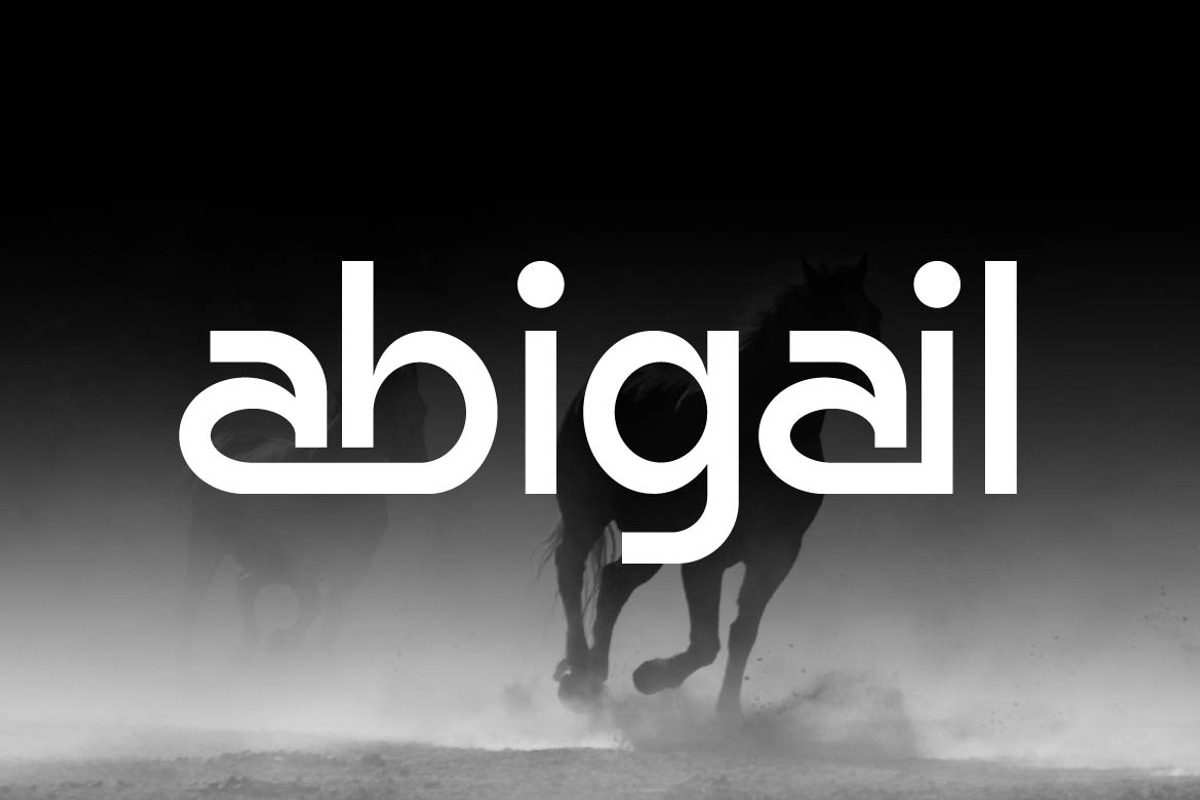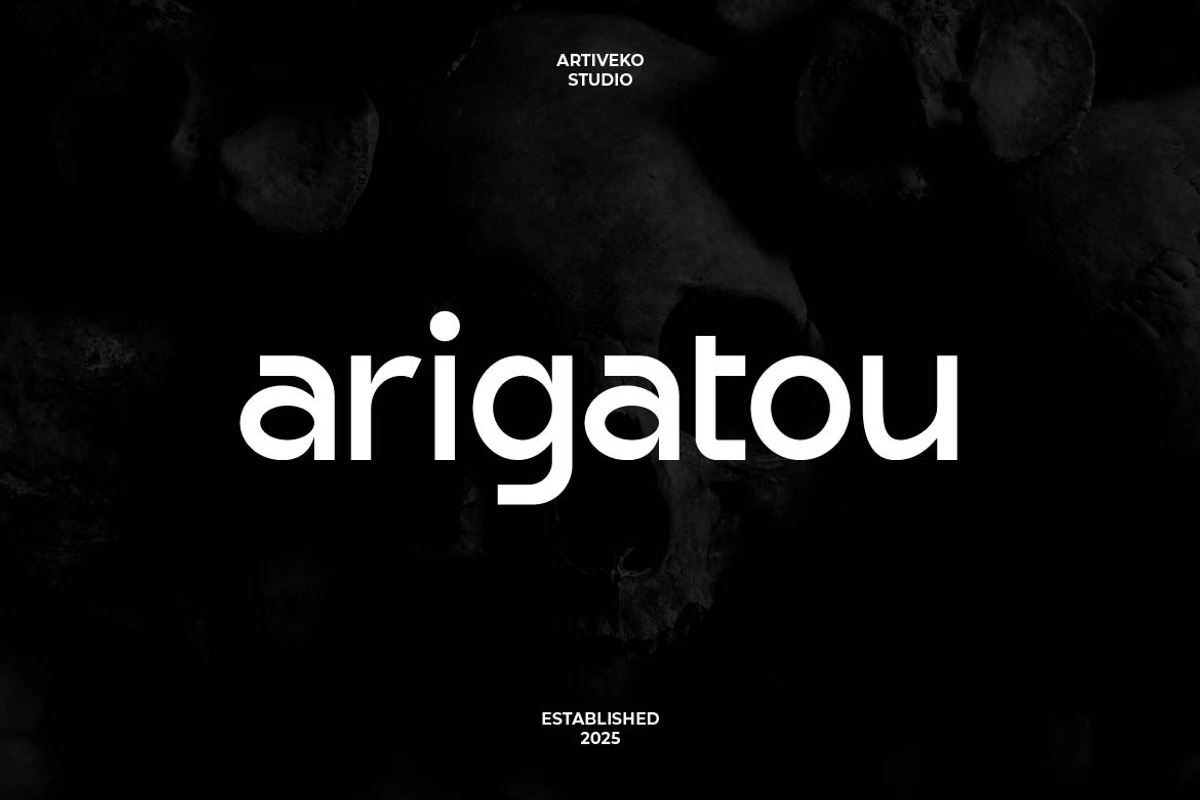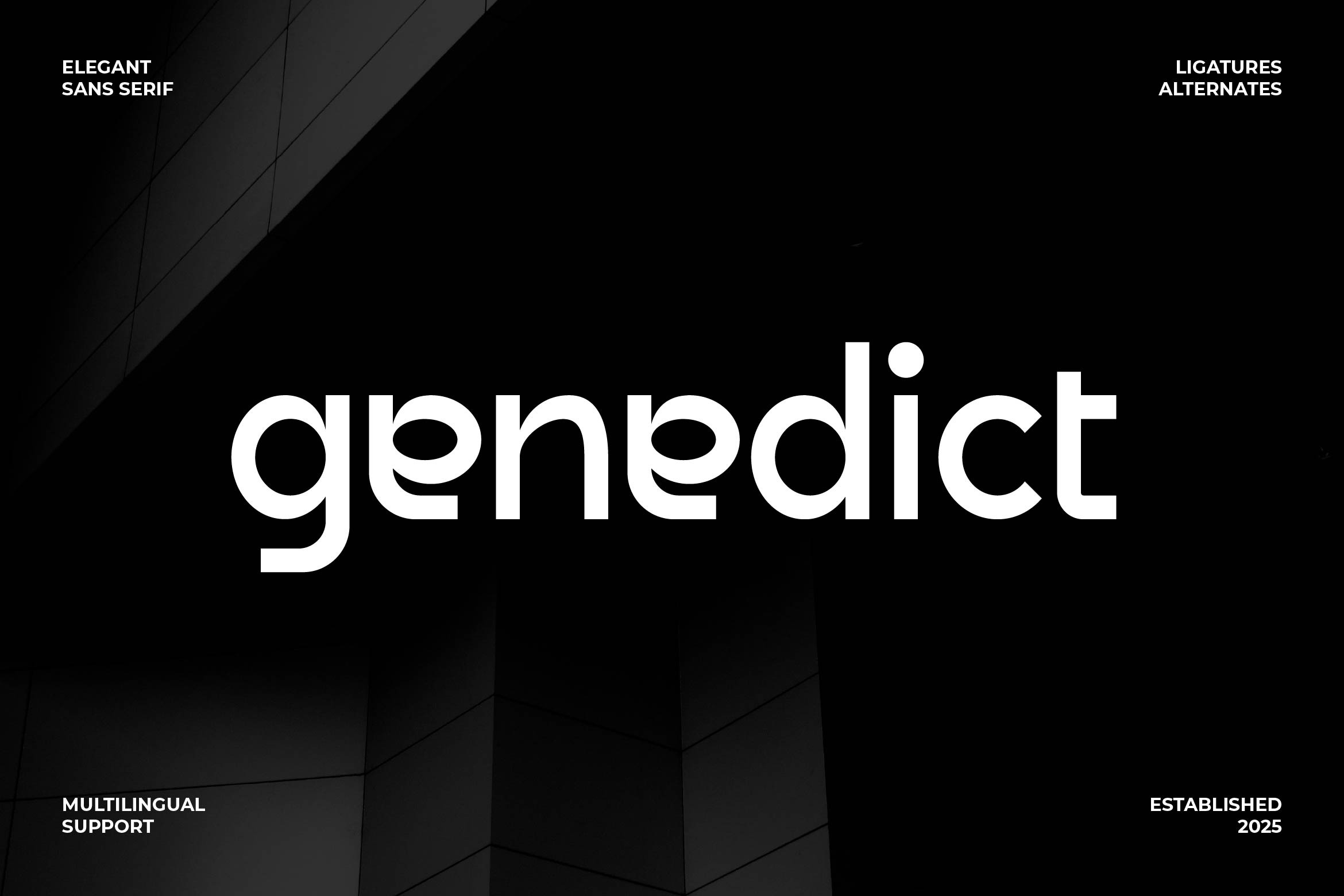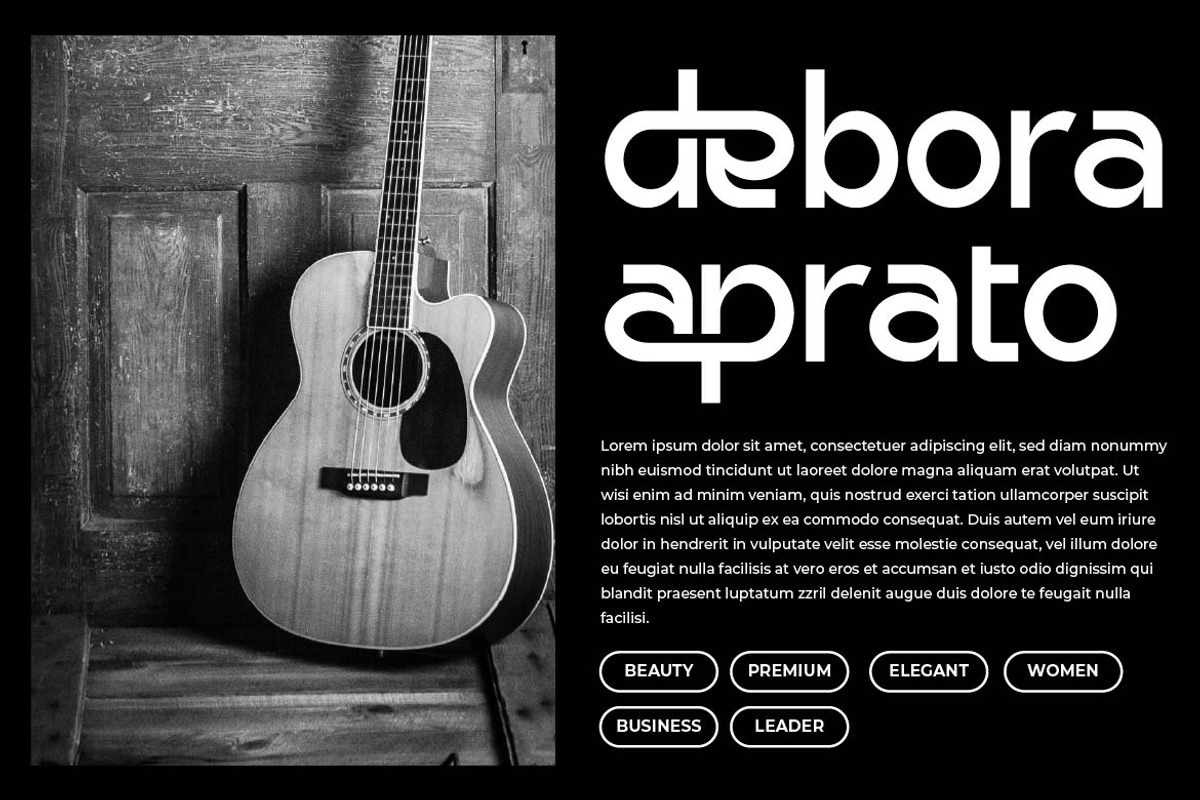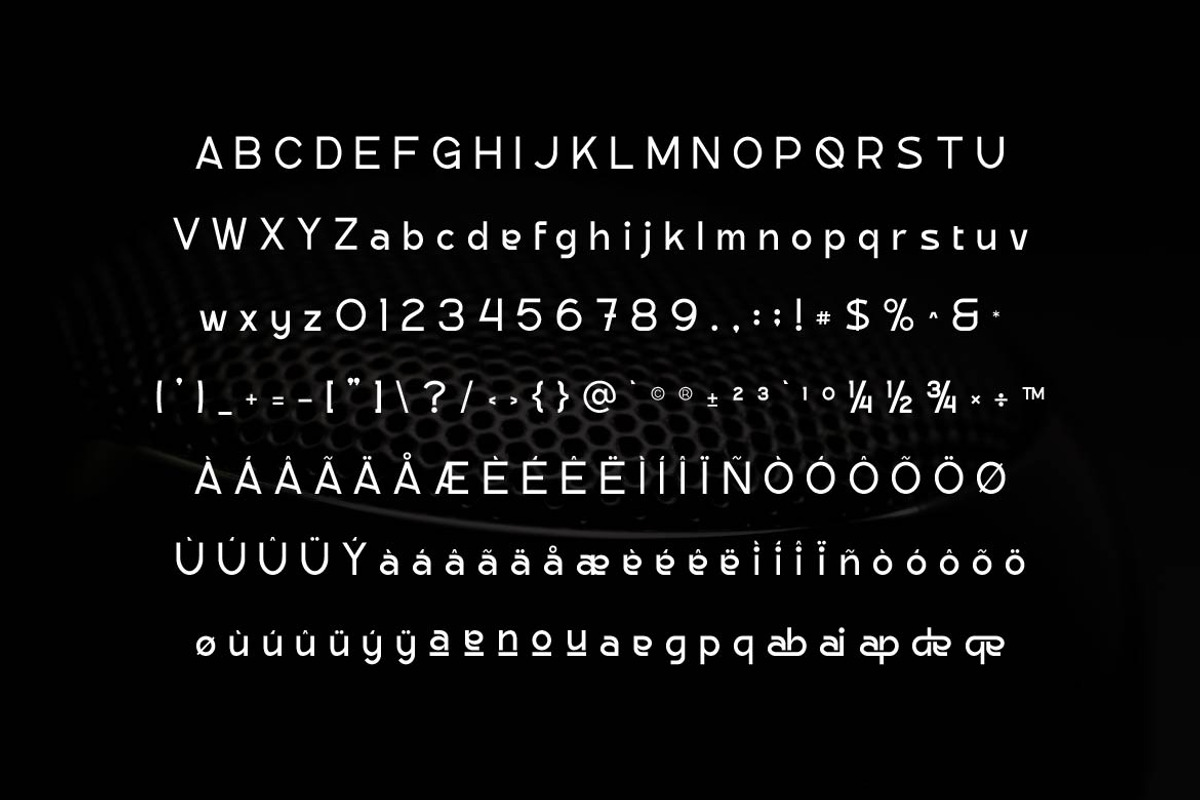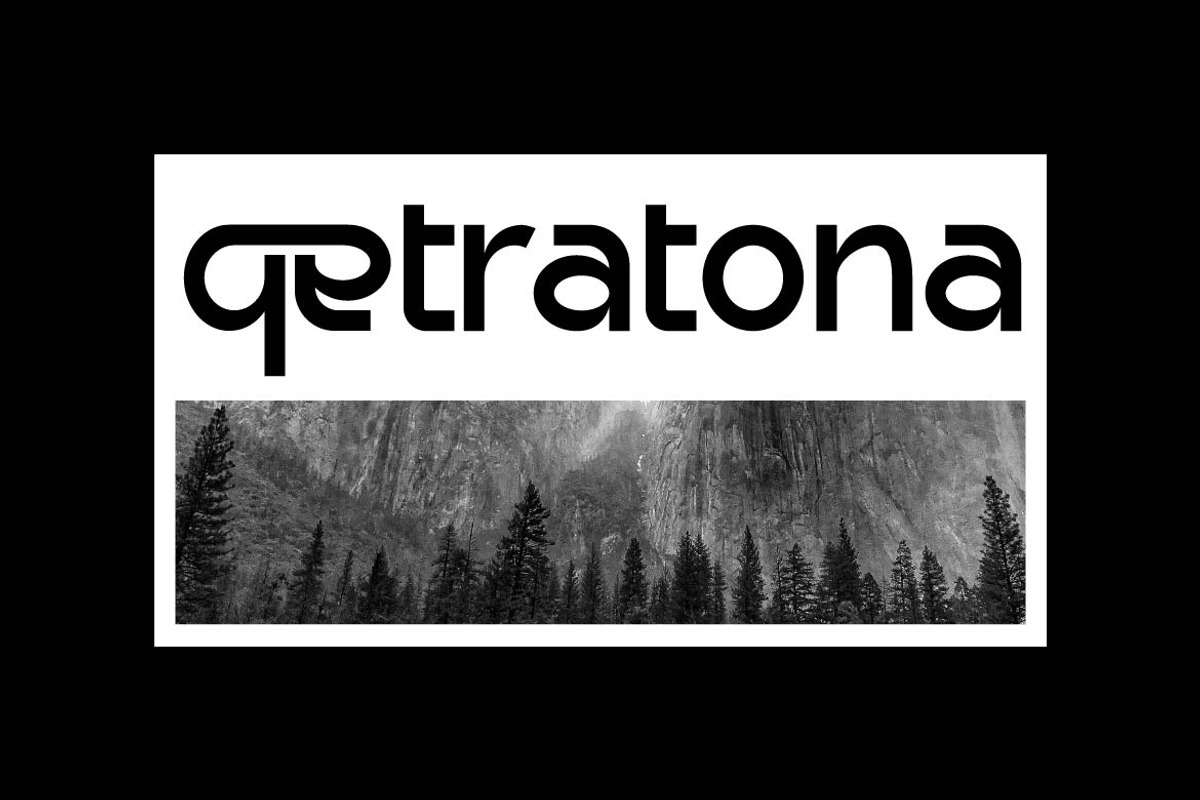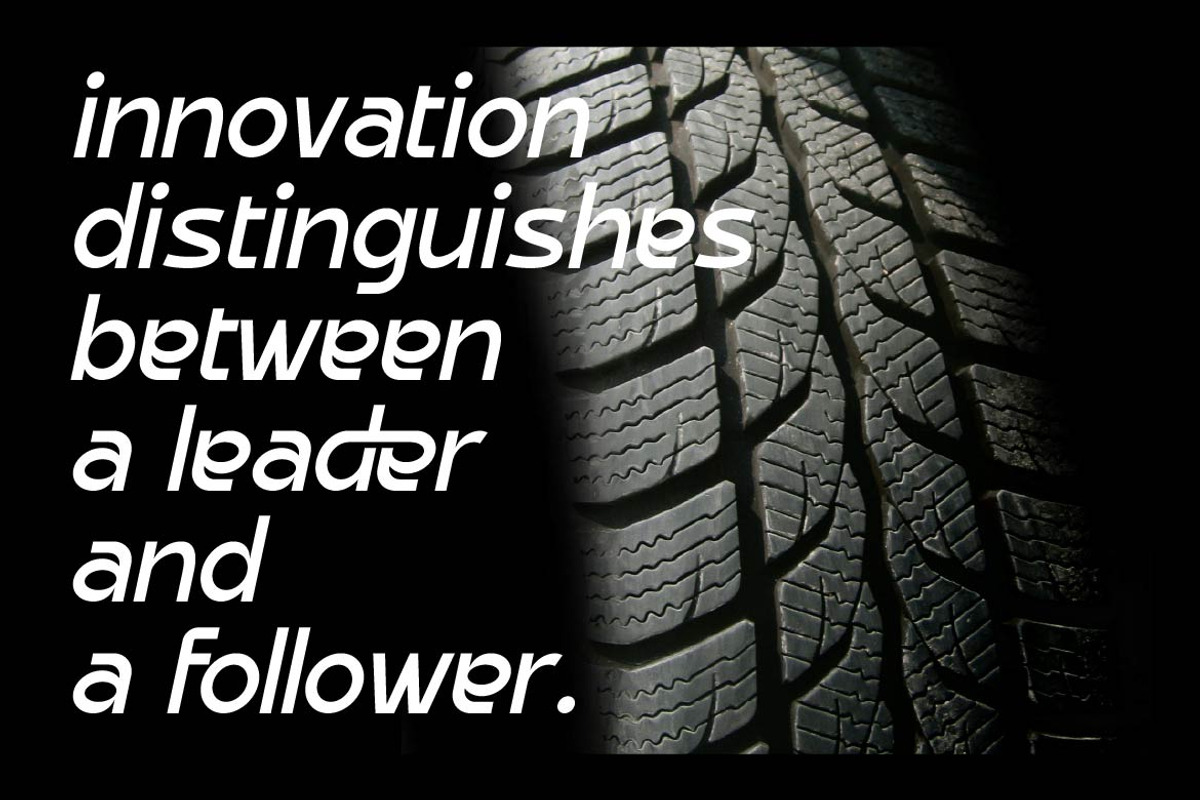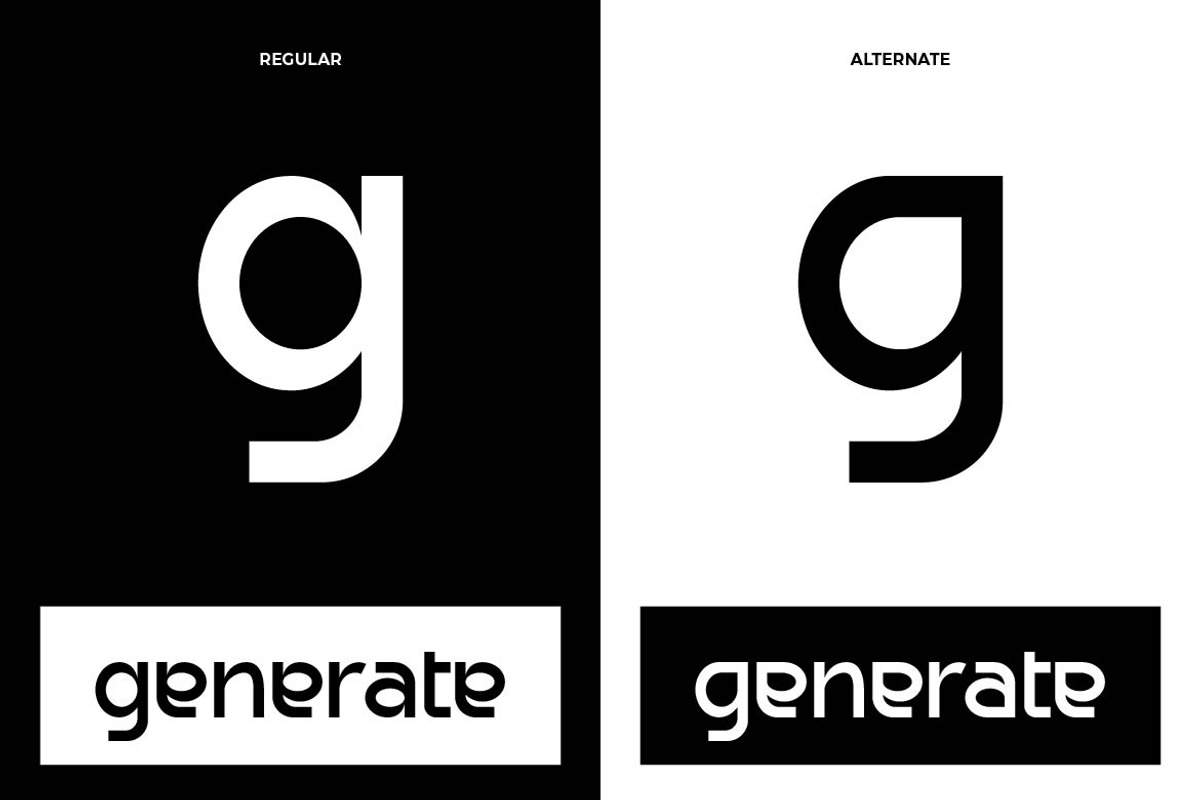
Genedict Premium Sans Serif Font
Genedict is a refined sans serif font designed to bring modern sophistication and timeless versatility to your typography. With clean lines, balanced geometry, and elegant proportions, Genedict delivers a premium look perfect for branding, editorial layouts, corporate identities, packaging, and luxury web design.